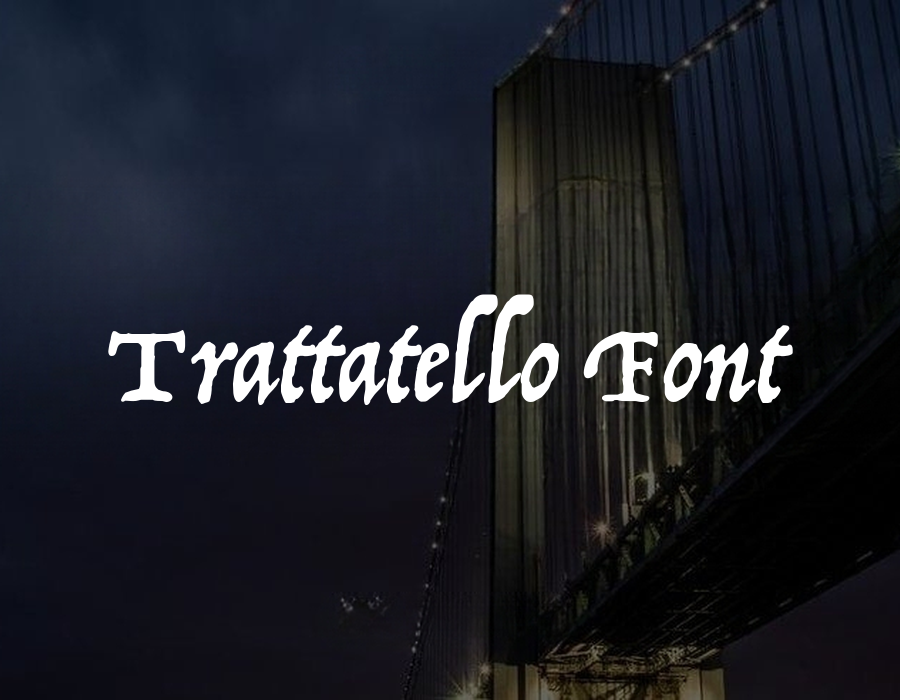
About Trattatello Font
Trattatello is a sophisticated and ornate calligraphic typeface that replicates the style of fine Renaissance engraving and formal chancery script. Its most striking feature is the contrast between thick and thin strokes created by a broad-nib pen, combined with sharp, angular serifs and elegant, flowing connections. This font exudes tradition, authority, and classic beauty, making it highly suitable for formal invitations, certificates, diplomas, wine labels, and high-end branding that requires a touch of historical gravitas and timeless craftsmanship. Its detailed nature means it performs best at larger sizes in display settings.